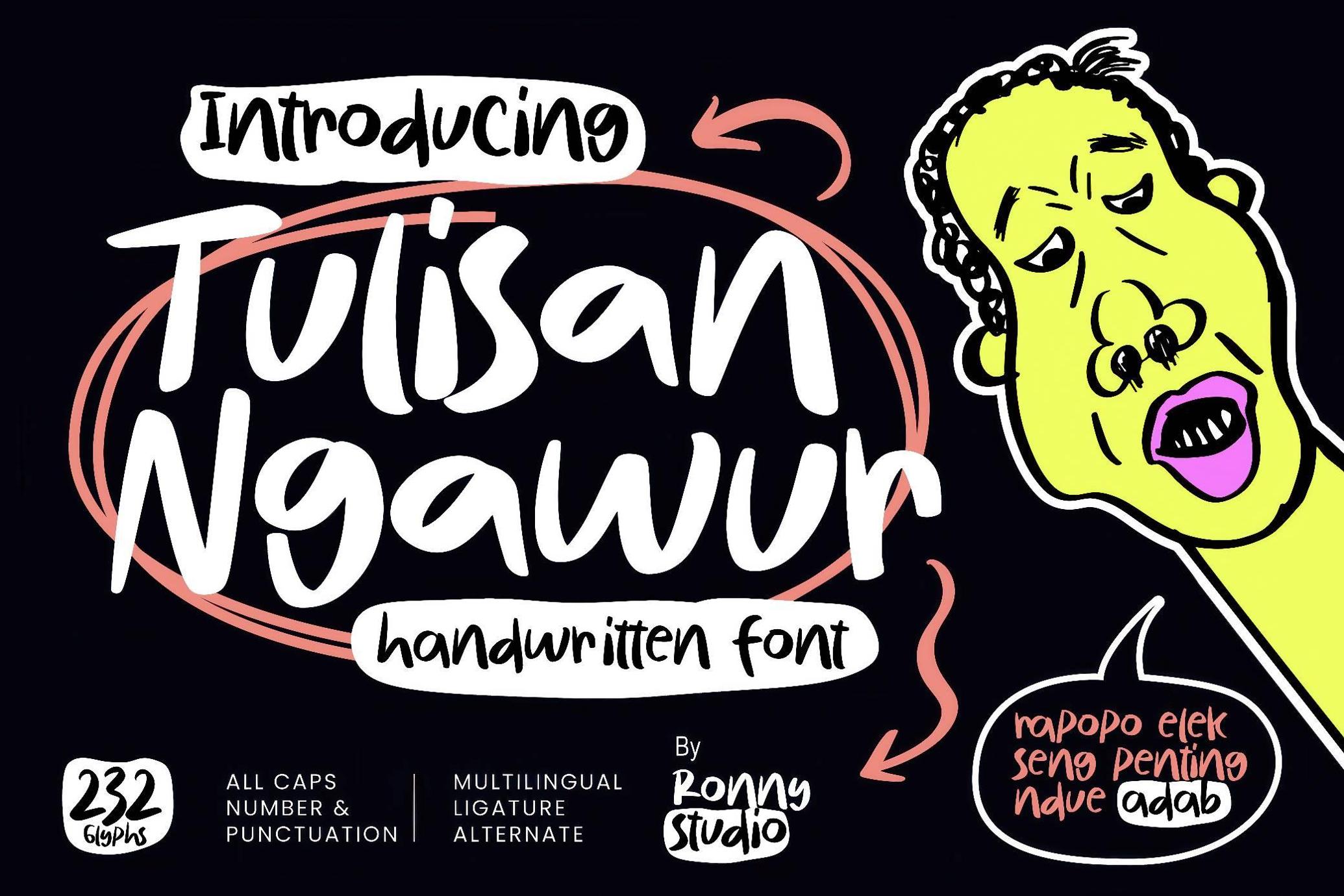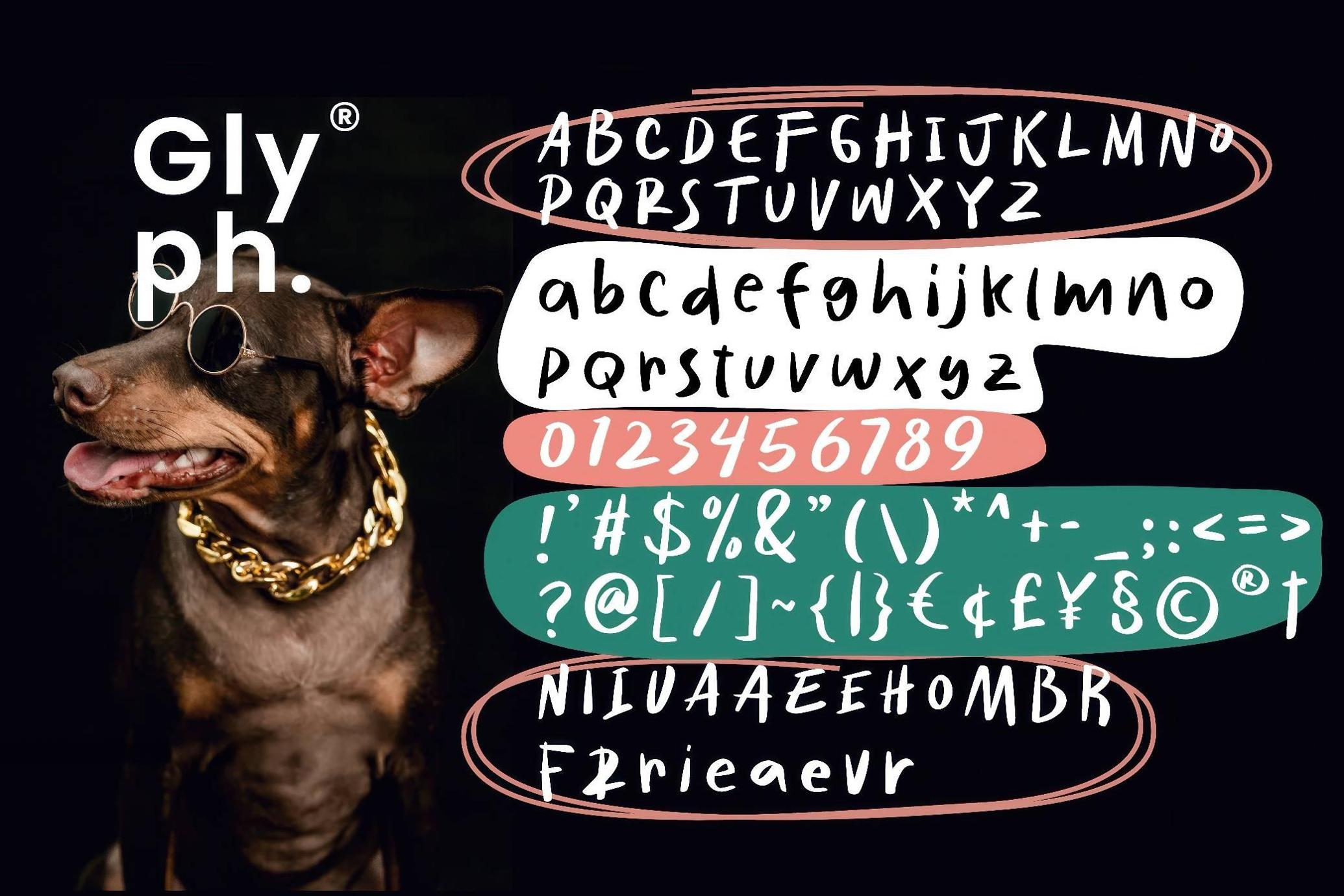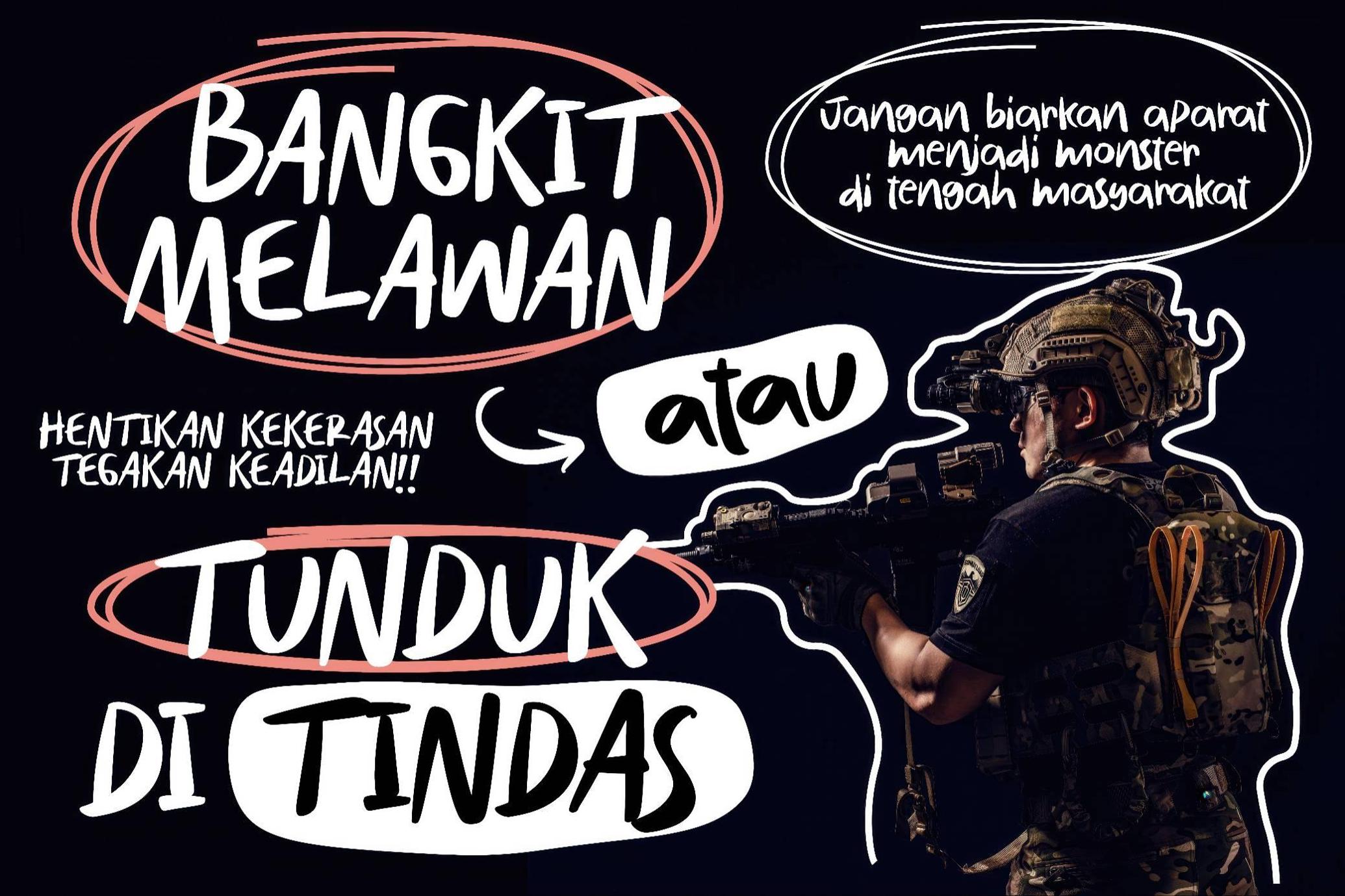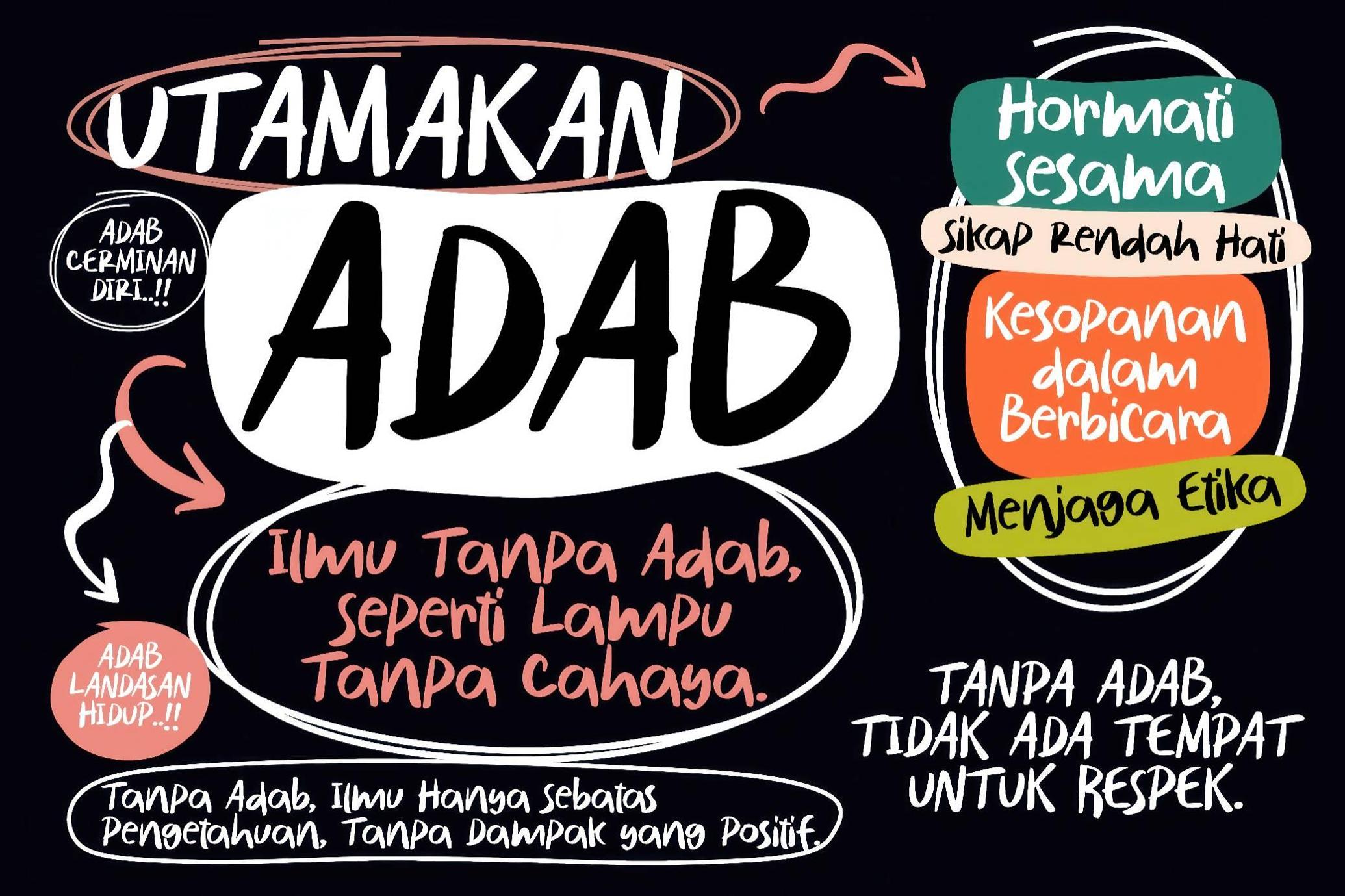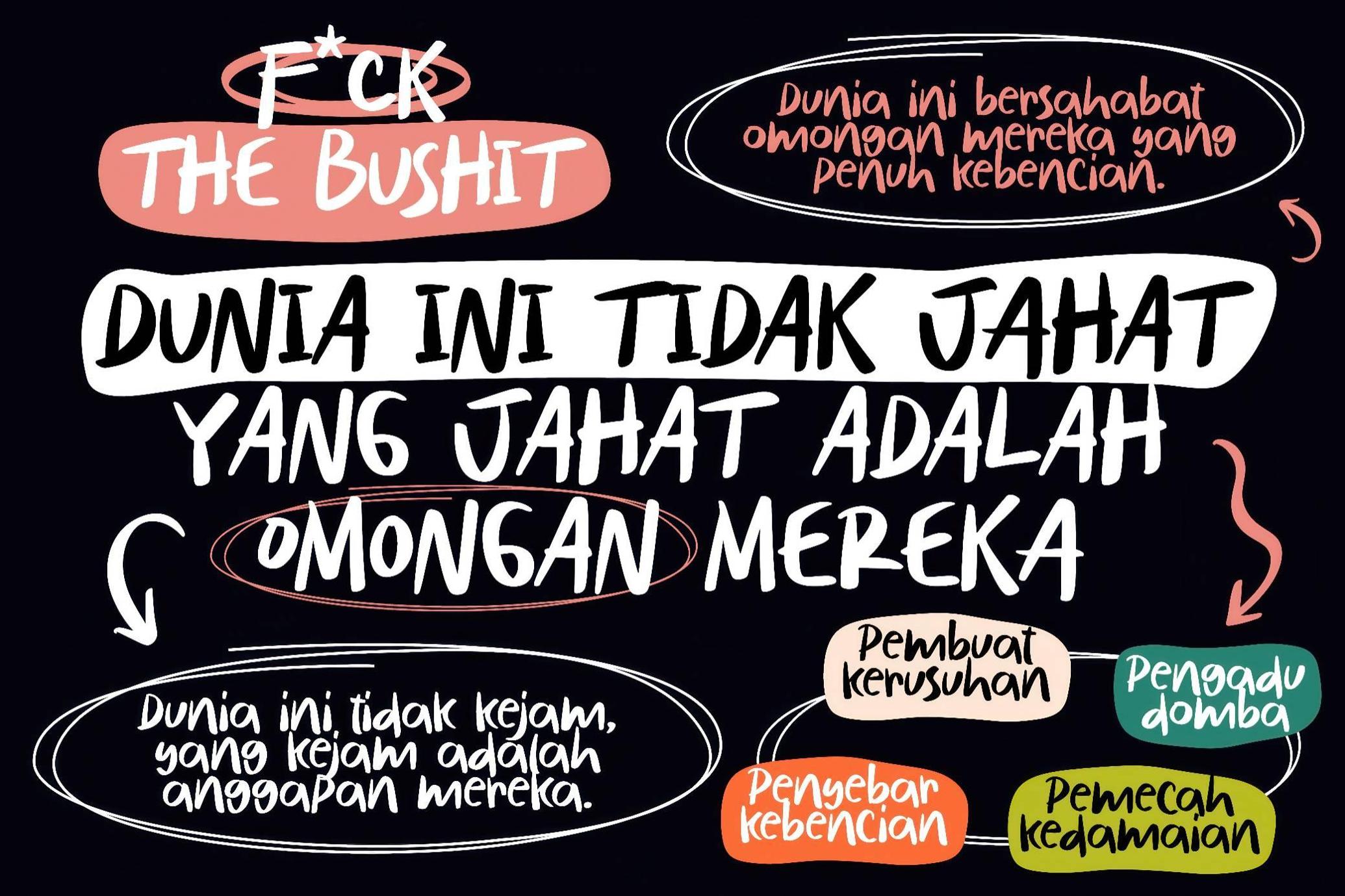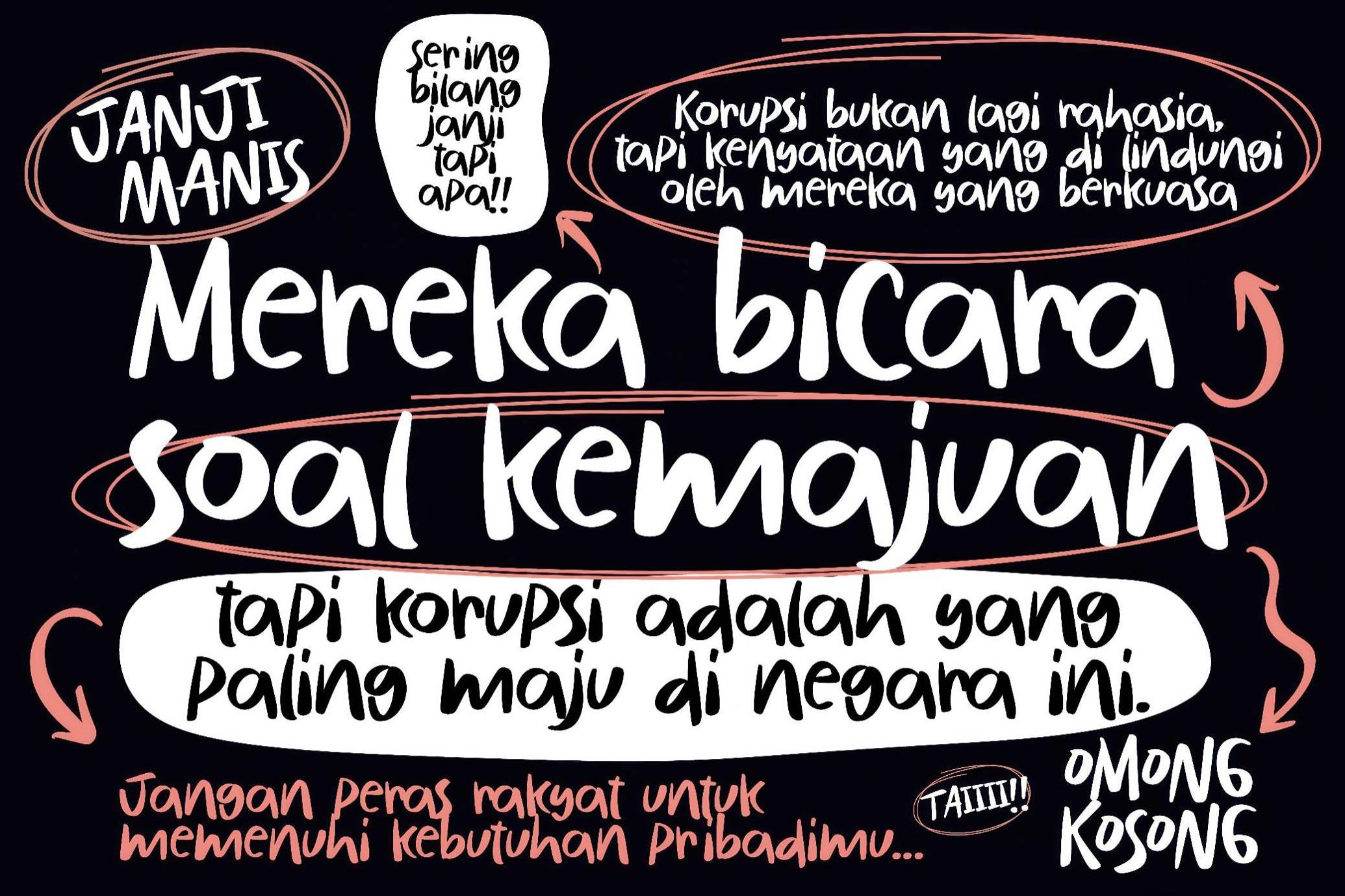
Tulisan Ngawur — Handwritten Font
Tulisan Ngawur
The Tulisan Ngawur is the font that doesn’t care about rules, but still gets the job done. It’s bold, messy-in-a-good-way, and full of that handwritten charm that says “Yes, I doodled this during lunch and yes, it looks amazing.” Perfect for posters, merch, stickers, flyers, t-shirt designs. It comes packed with 232 glyphs including numbers, punctuation, multilingual support, alternates, and little playful ornaments. If you want your work to feel rebellious, cheeky, and totally unforgettable, Ngawur’s ready to scribble outside the lines.